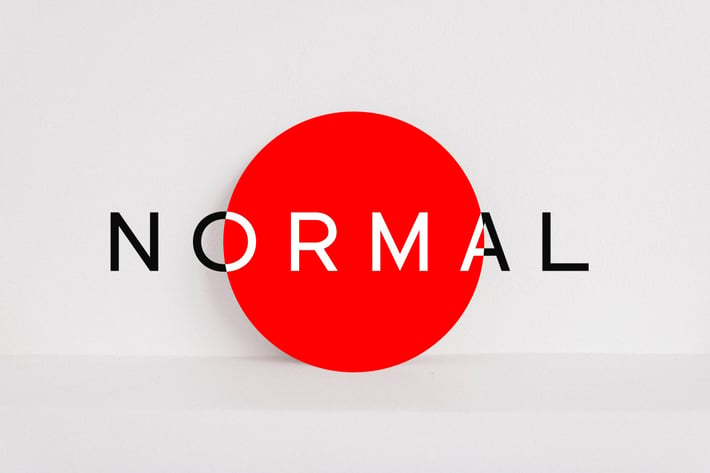
NORMAL - Minimal Sans Serif Typeface + WebFonts
NORMAL - A pure & minimal typeface with the special charm of a perfect Sans-Serif font. Just one look and you will notice the unique flair of this typeface which will make it perfect for logotypes, headlines, branding materials, corporate identities, web & print purposes without any limits.
NORMAL comes with 5 weights: ExtraLight / Regular / Bold / ExtraBold. The pack contains OTF, TTF and Web Fonts (all EOT, SVG, TTF, WOFF included).